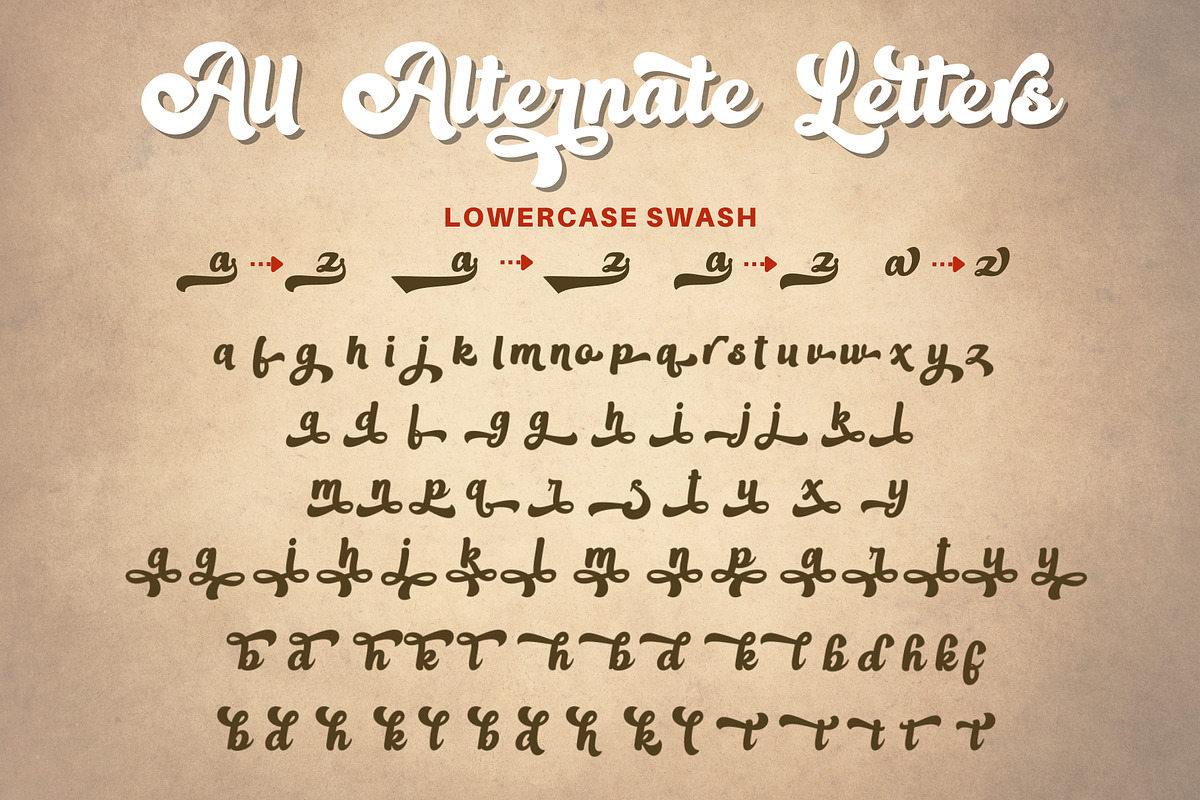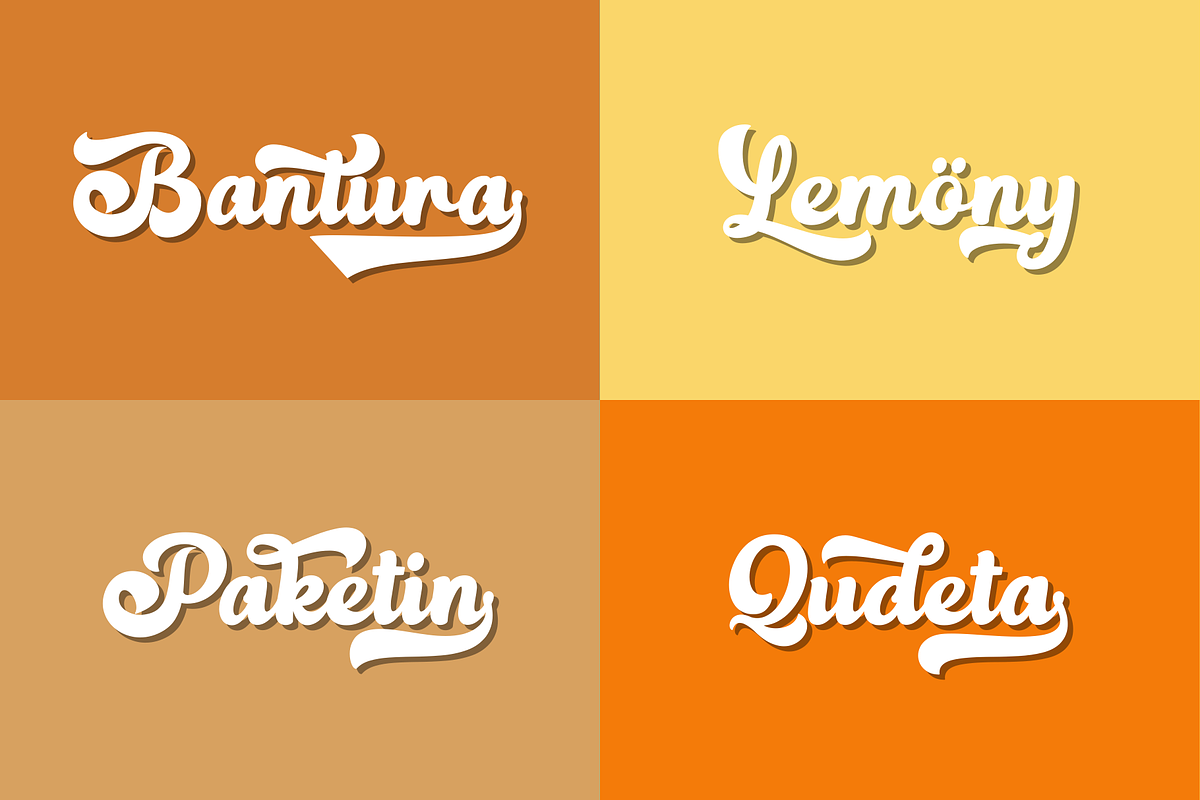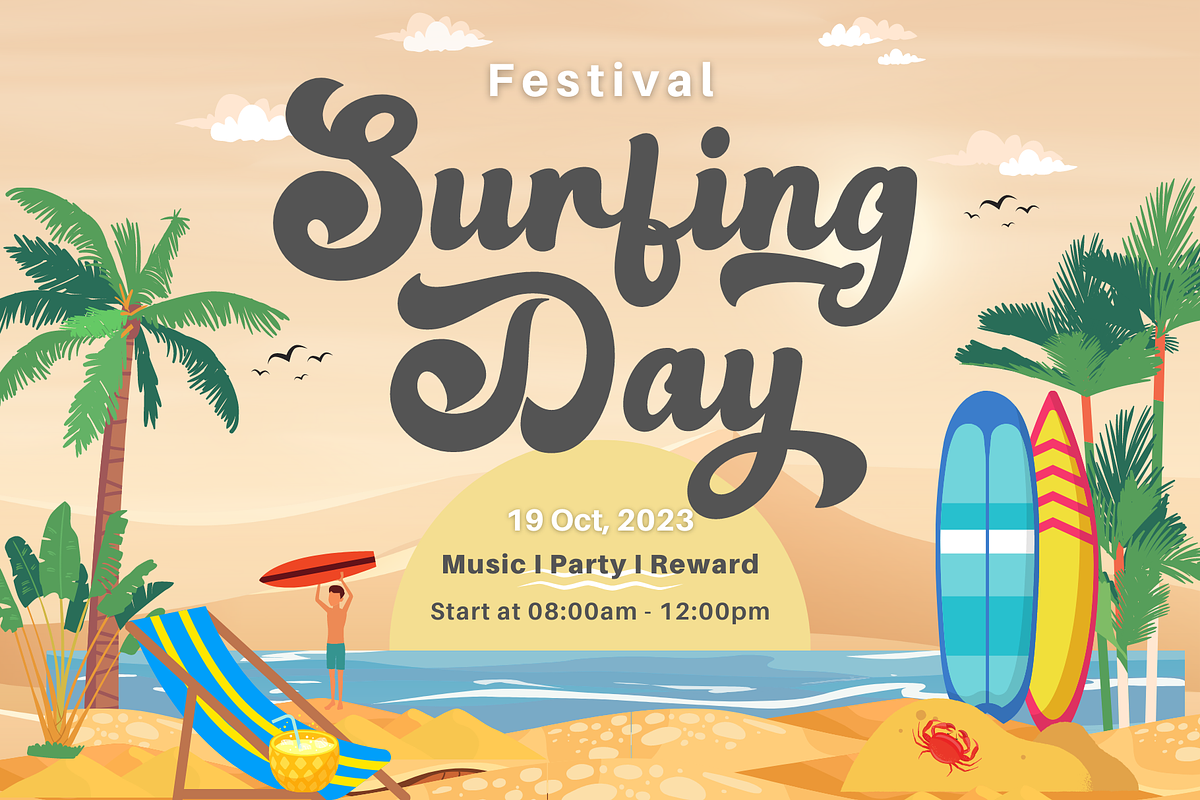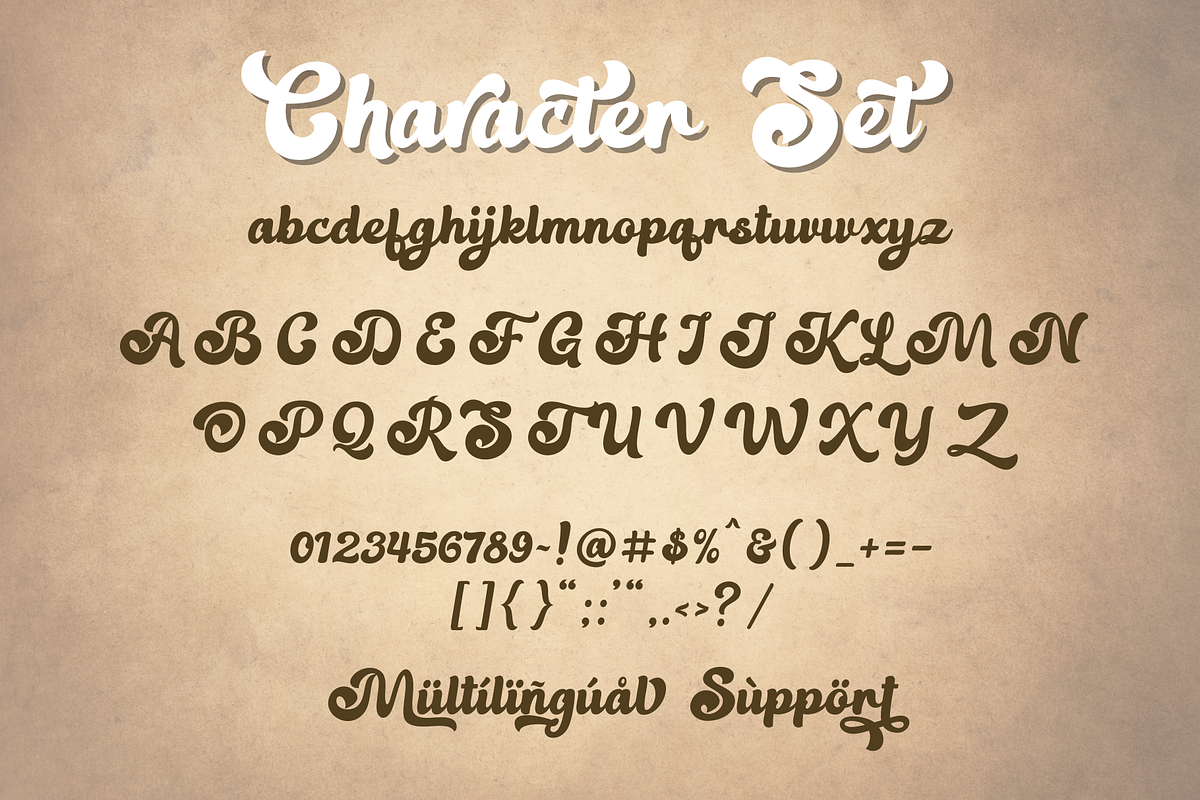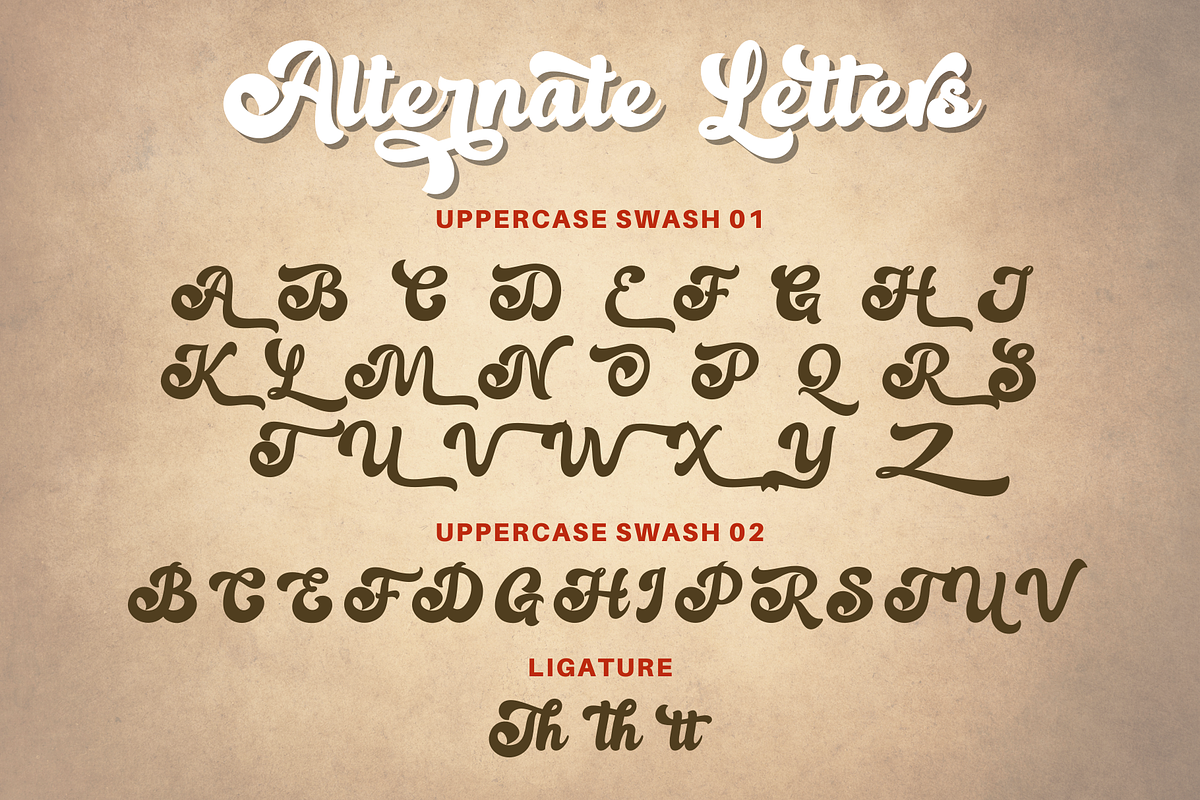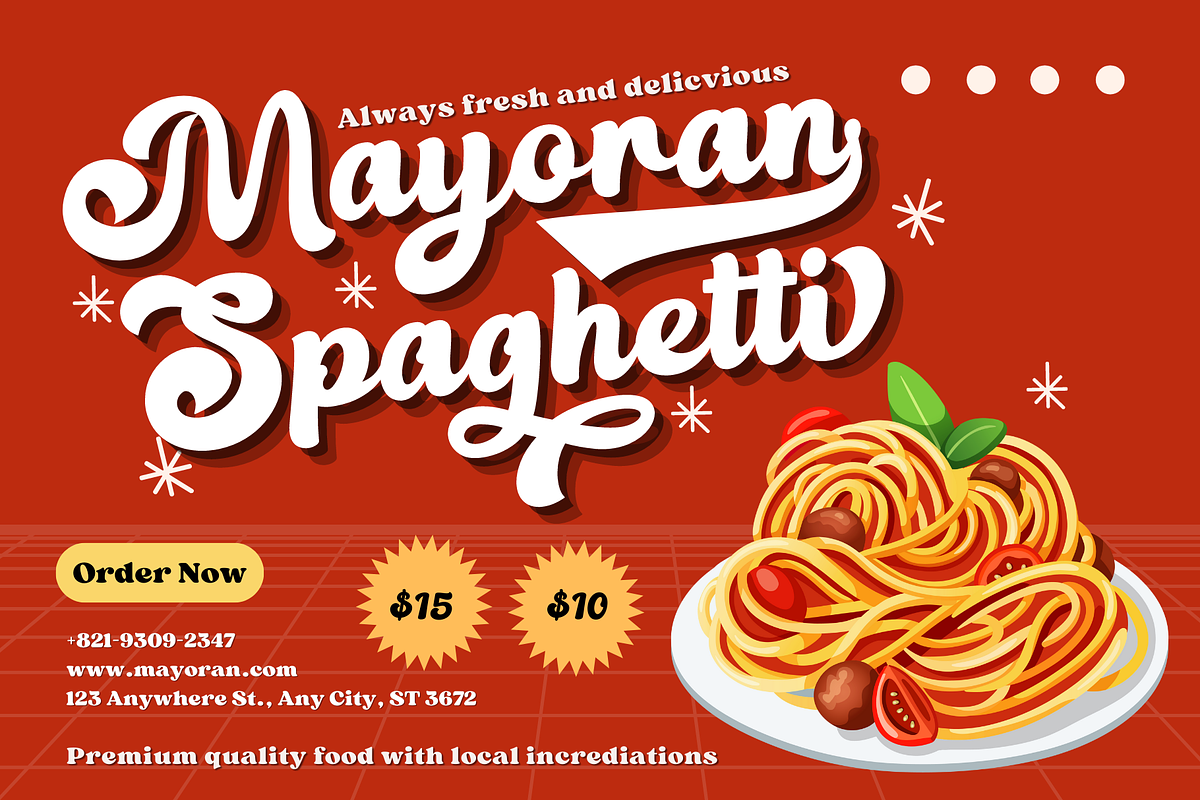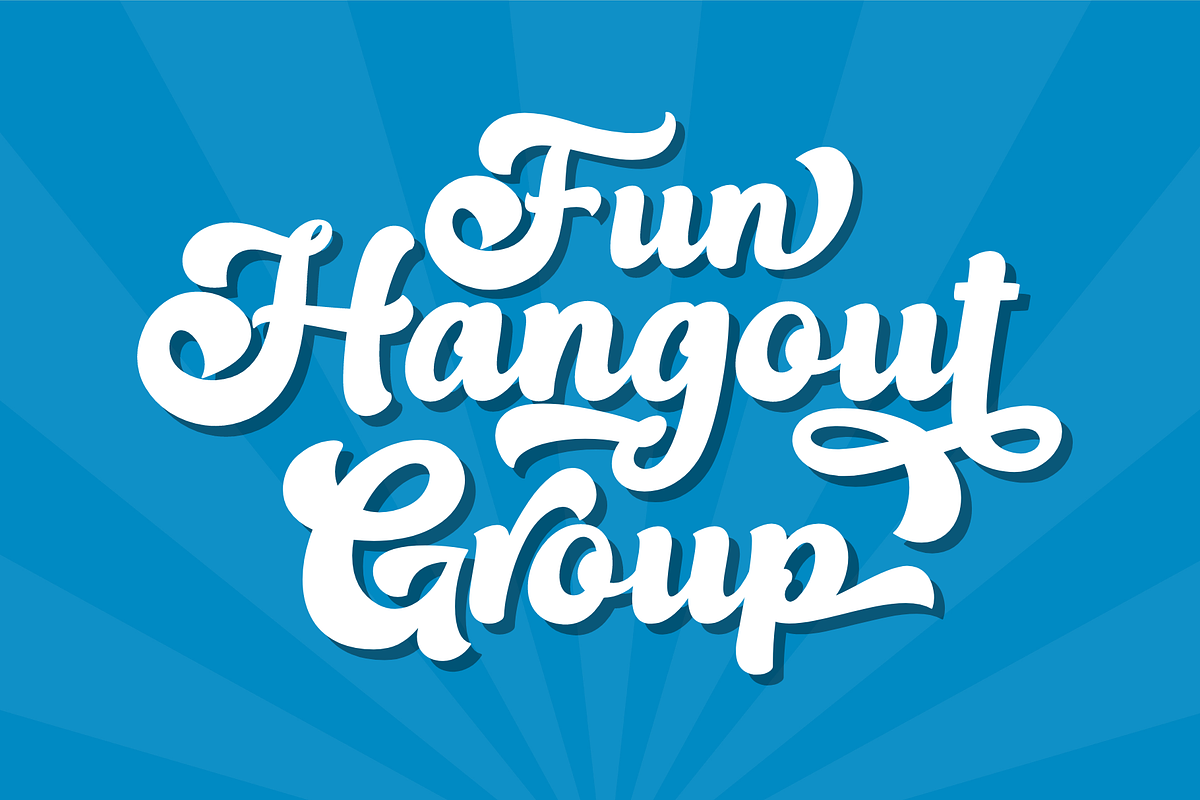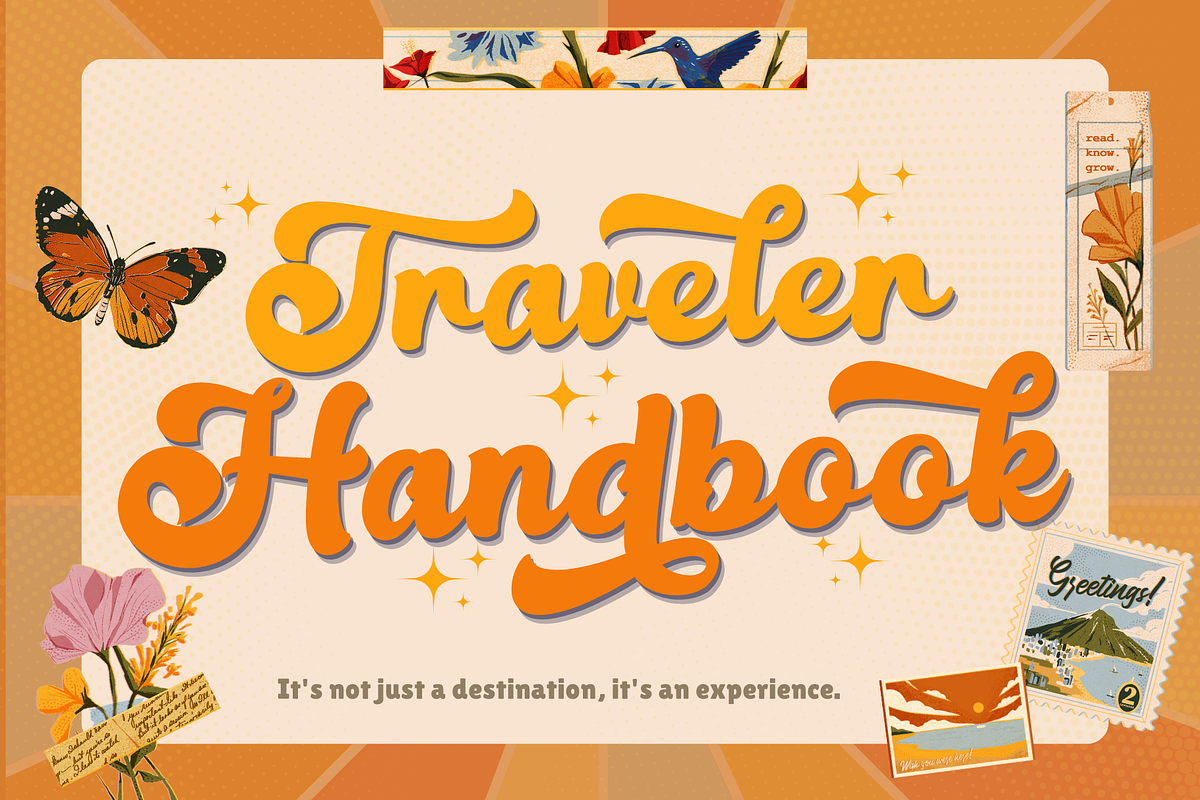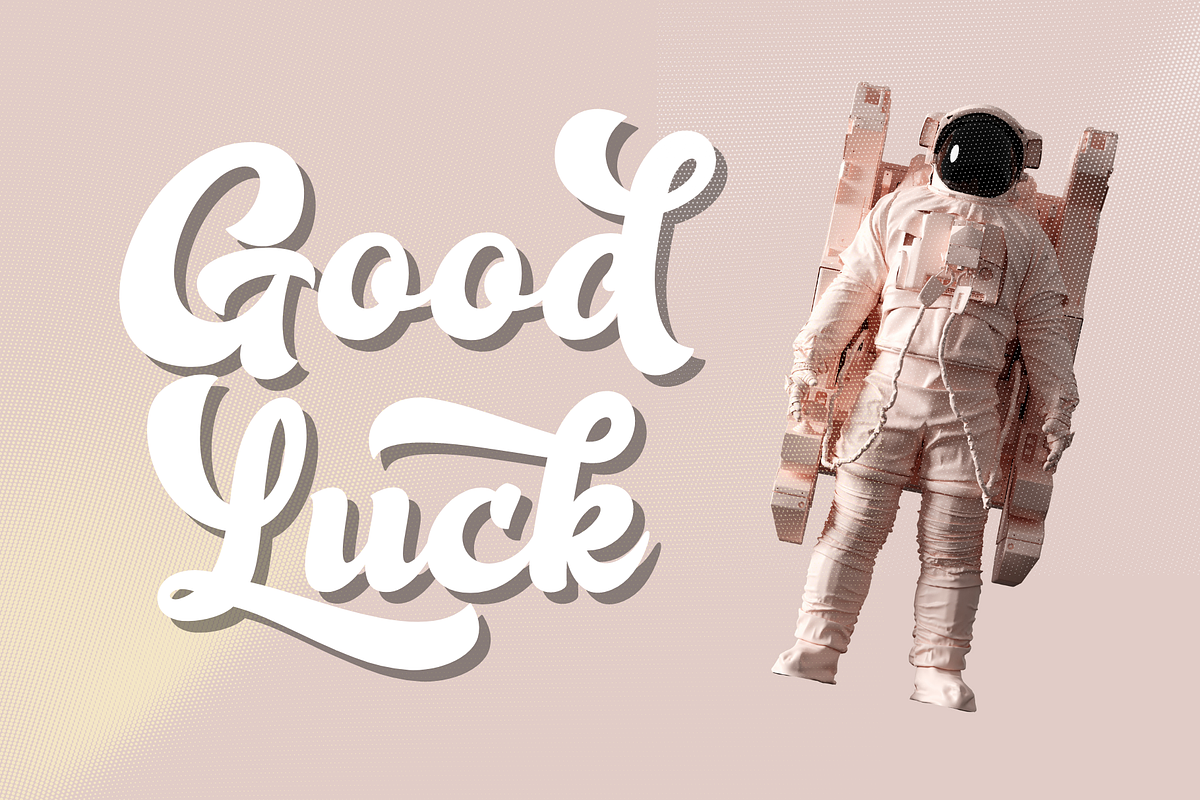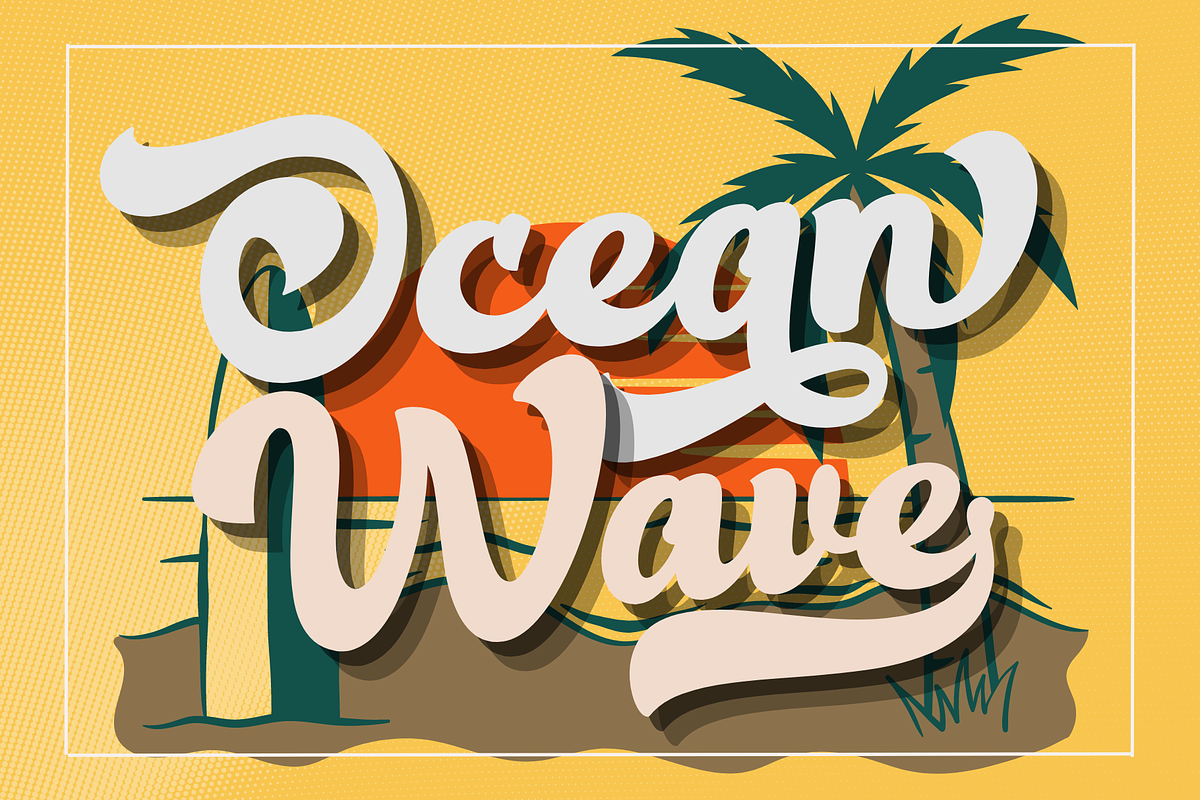
Nahista - Retro Font
Introducing "Nahista," a charming retro script font that embodies the essence of nostalgia and vintage aesthetics. This font takes inspiration from the bygone era, evoking a sense of old-school charm and classic elegance. With its distinct letterforms, decorative swashes, and retro-inspired ligatures, "Nahista" adds a touch of authenticity and personality to your designs. Whether you're working on branding, packaging, posters, or any project that requires a retro touch, this font is a perfect choice.
- Uppercase and lowercase letters
- Tons of Uppercase and lowercase alternates
- Multilingual, numerals, and punctuation